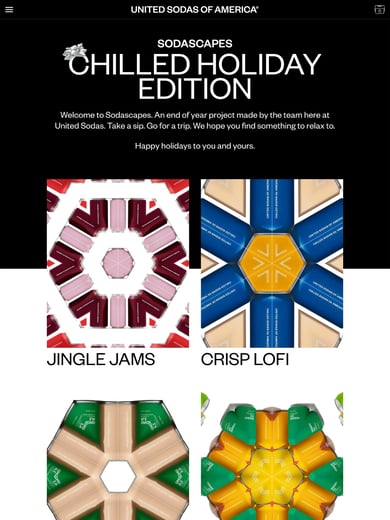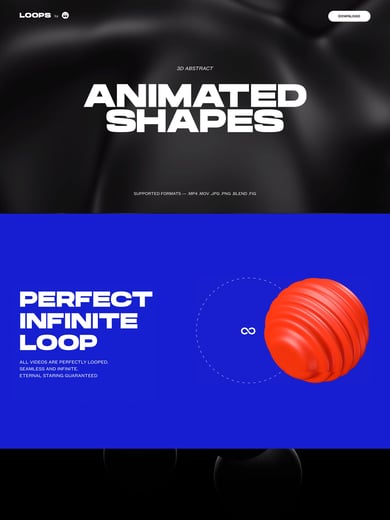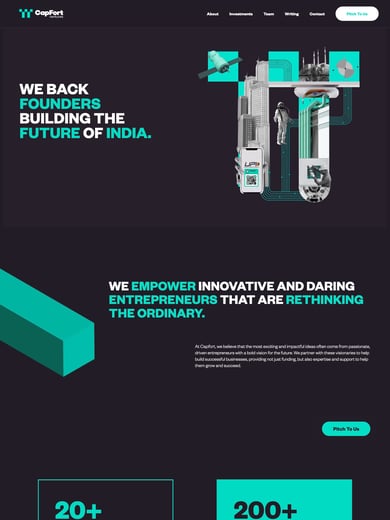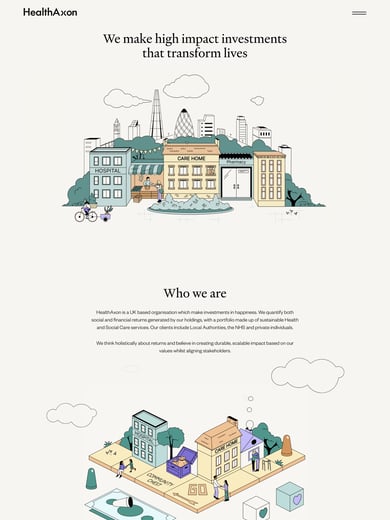
Founders Grotesk typeface specimen
Founders Grotesk
Founders Grotesk draws together early twentieth-century grotesques and the close spacing of later headline type. Its historical references produce a distinctive texture rather than a strict revival. Watch the tighter letterfit when adapting large headings to smaller screens.
Sans serif
Designer / foundry
Klim Type Foundry ↗